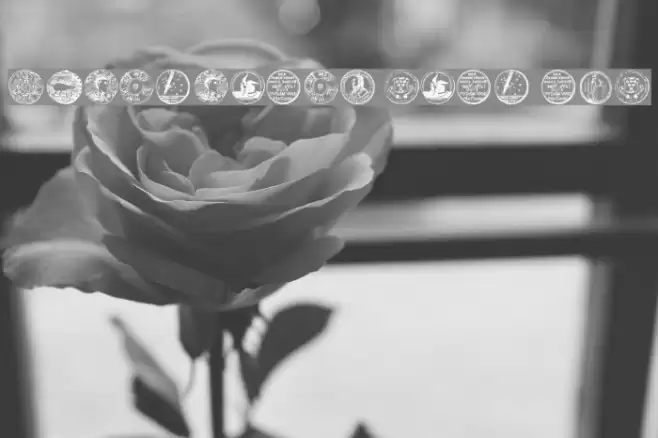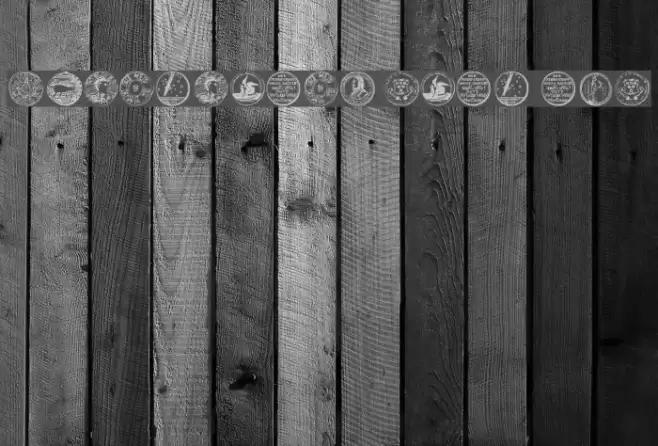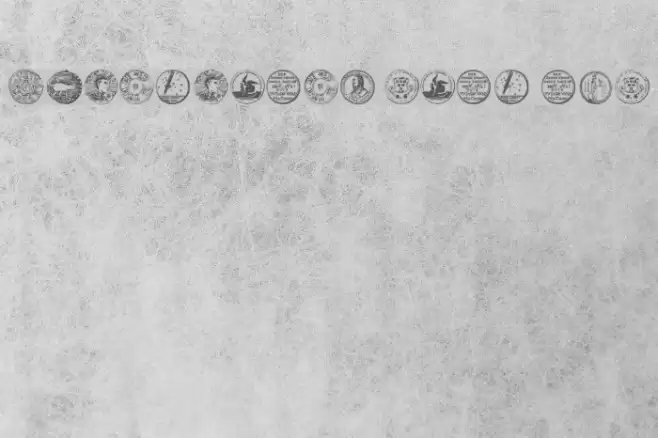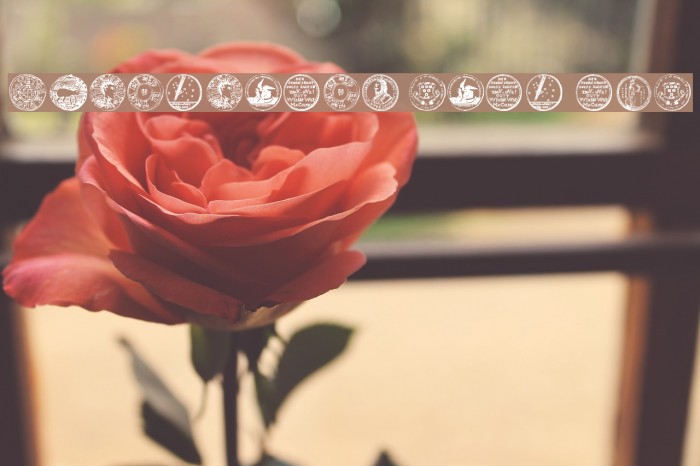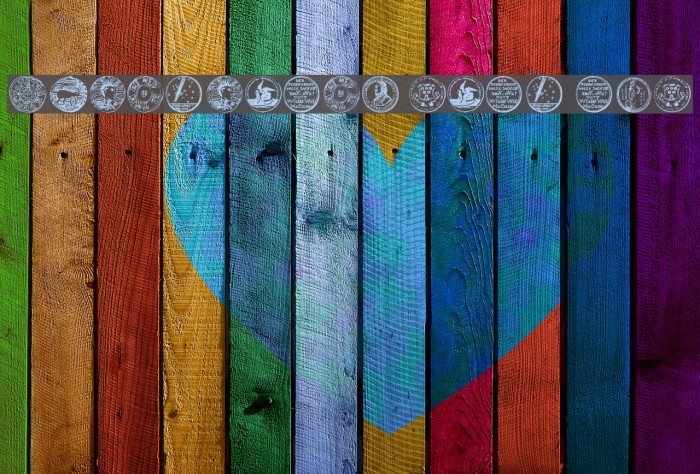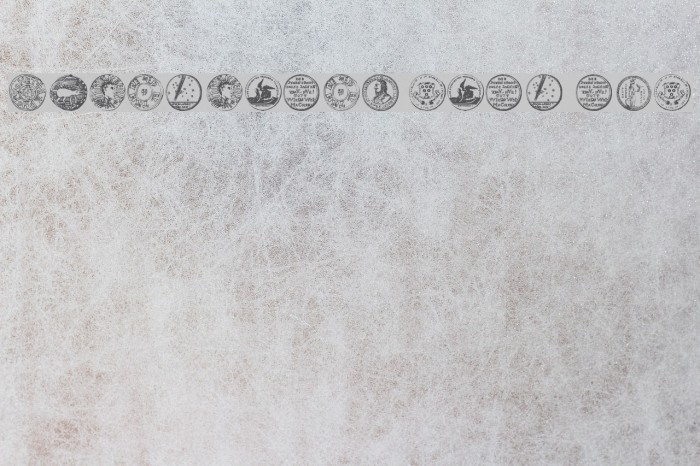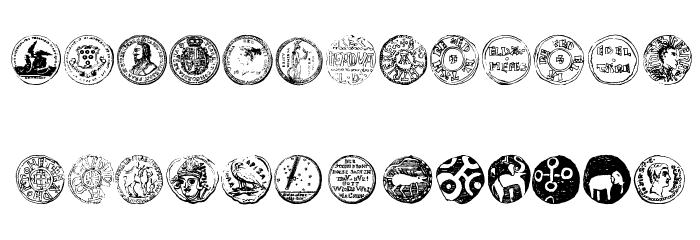
Numismatic Bats TFB Font
Numismatic Bats TFB Description
A decorative display font composed of detailed illustrations of ancient and historical coins, each glyph represented by a unique coin design with intricate engravings and motifs.
Font featuring glyphs as illustrated ancient coins from Dingbats fonts.
- Proposed Projects: Historical posters, museum exhibits, educational materials, themed event invitations, book covers on history or archaeology.
- Overall Style: Vintage, Decorative
- Use Case: Logos, Headlines, Themed graphics, Educational visuals